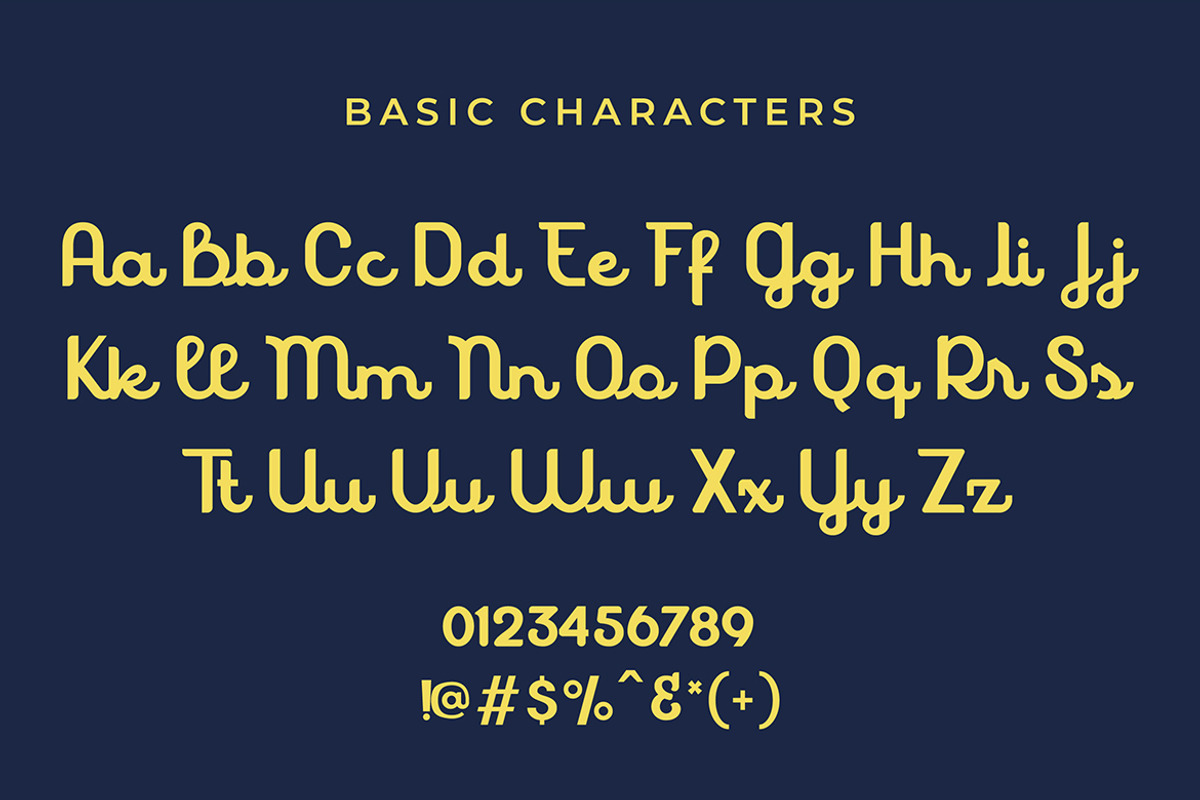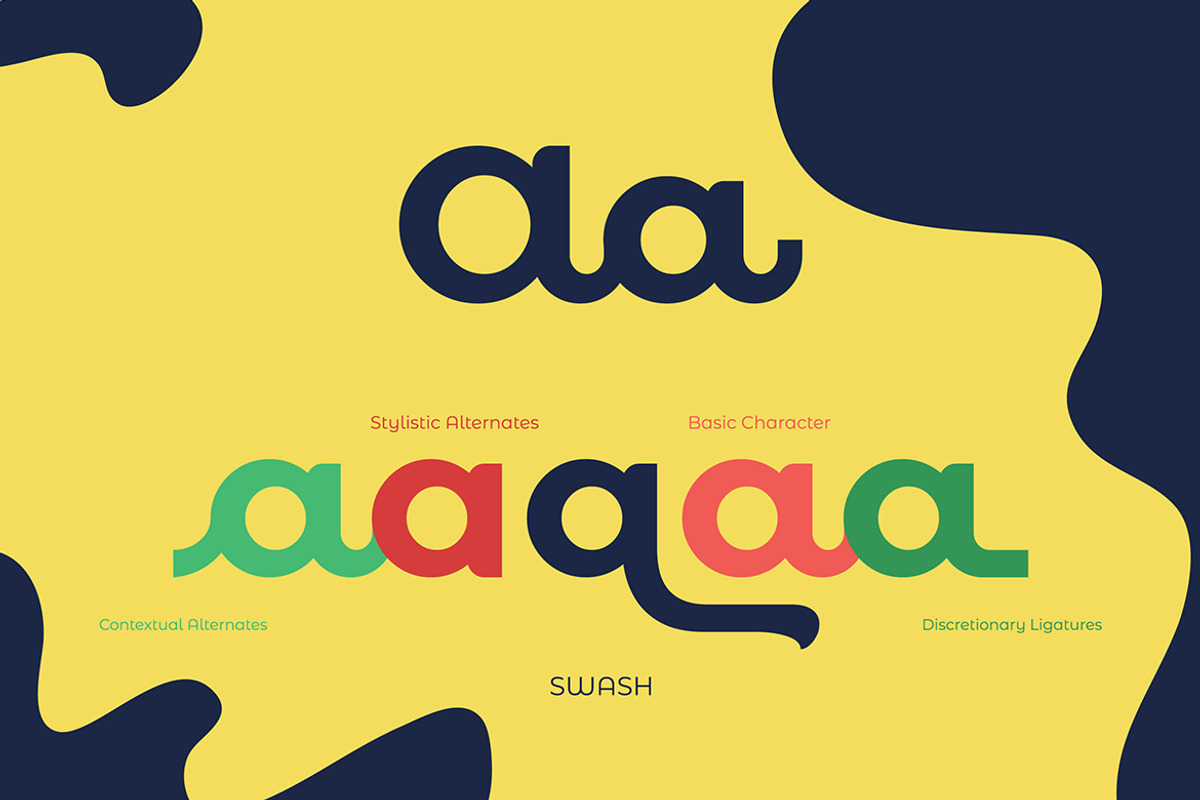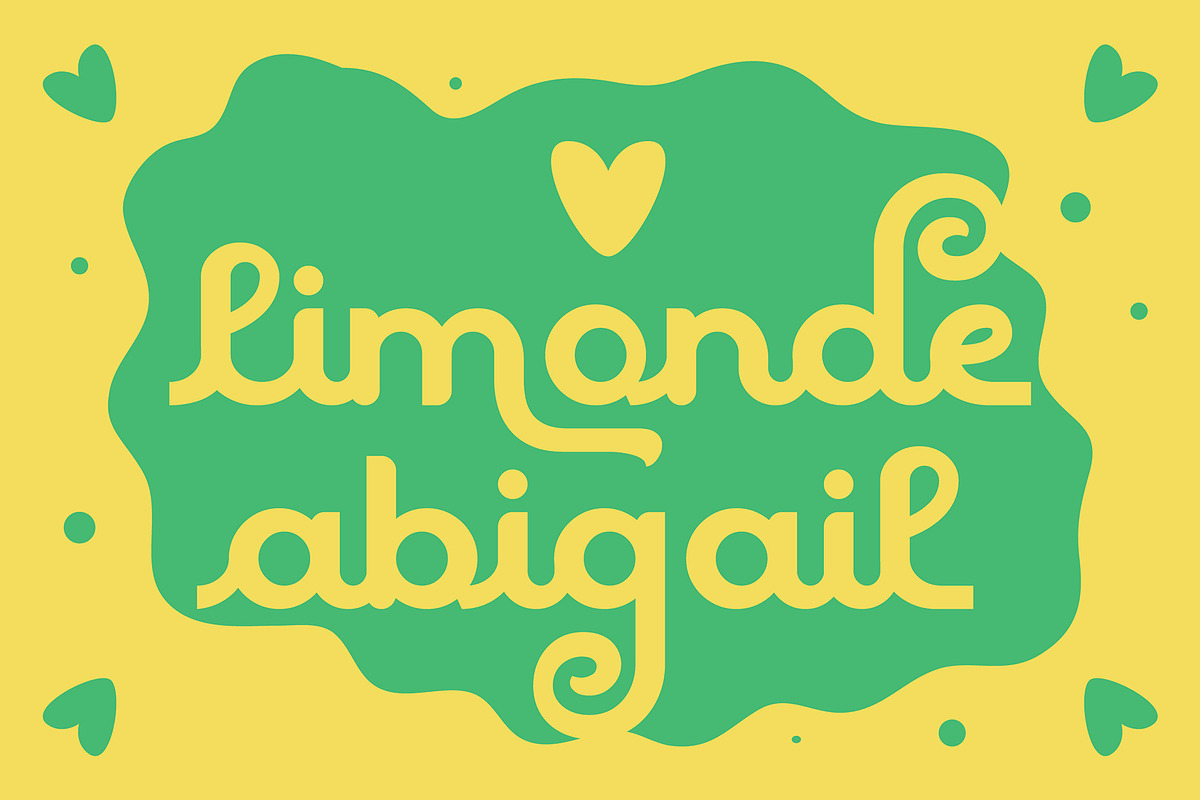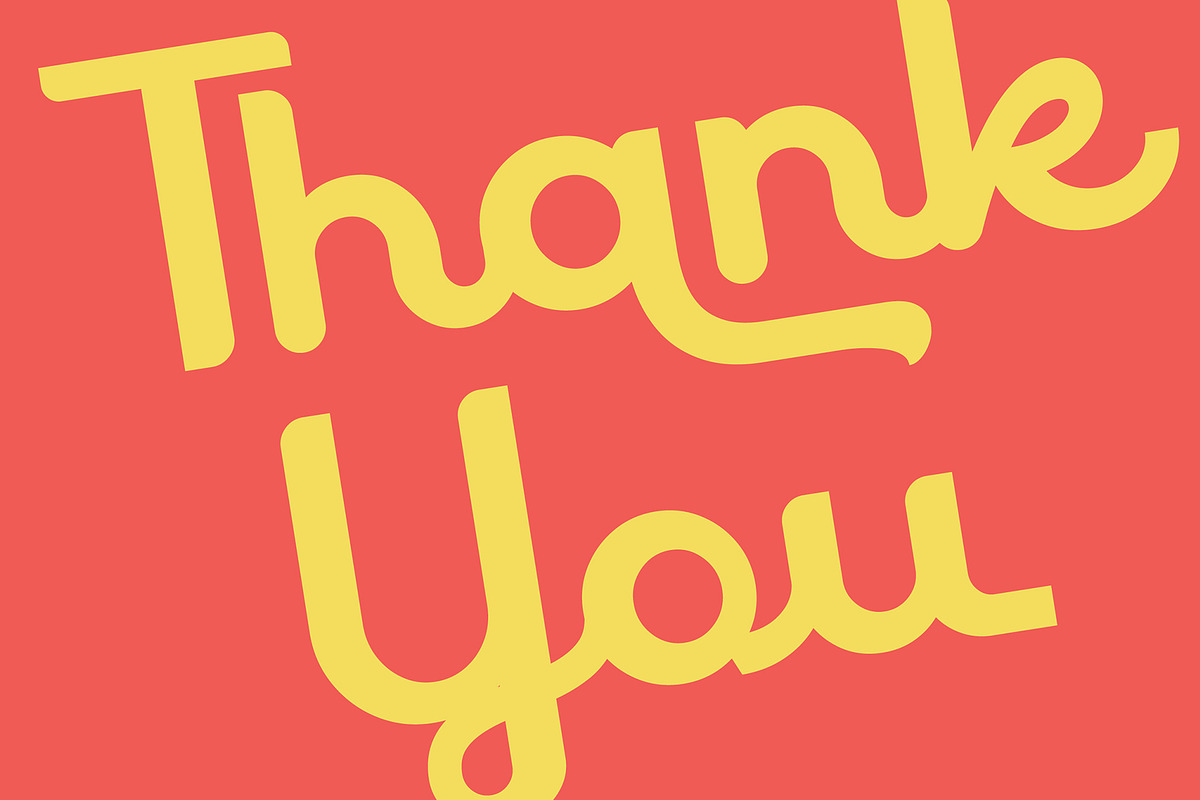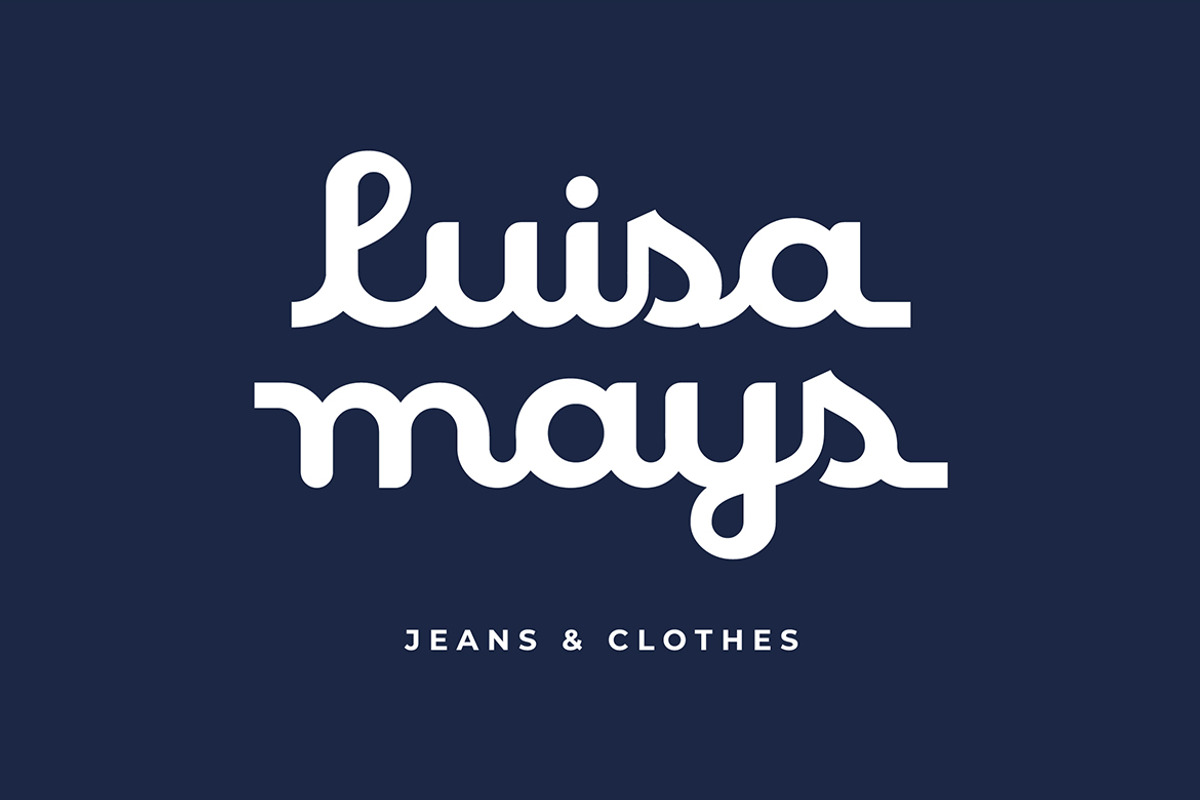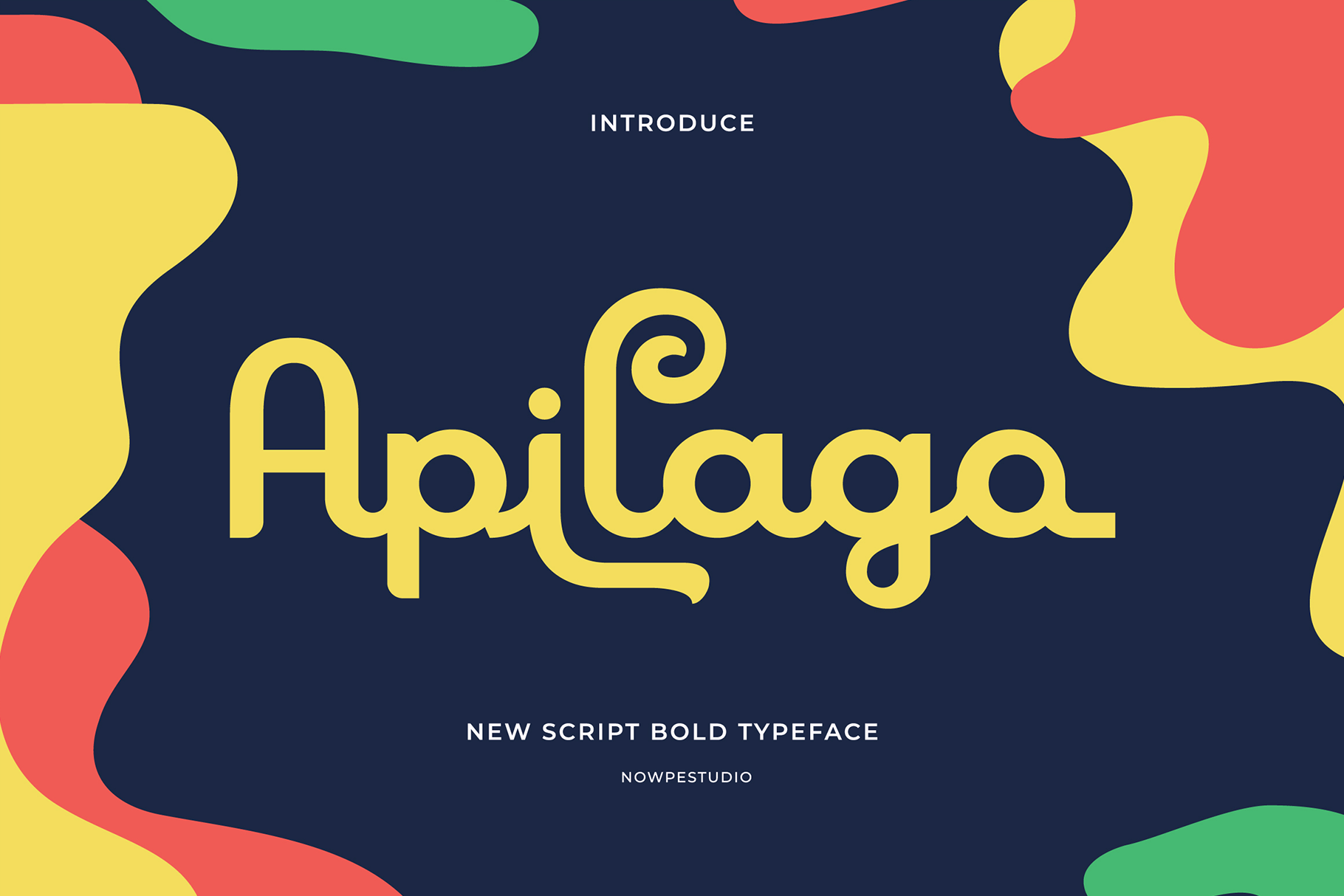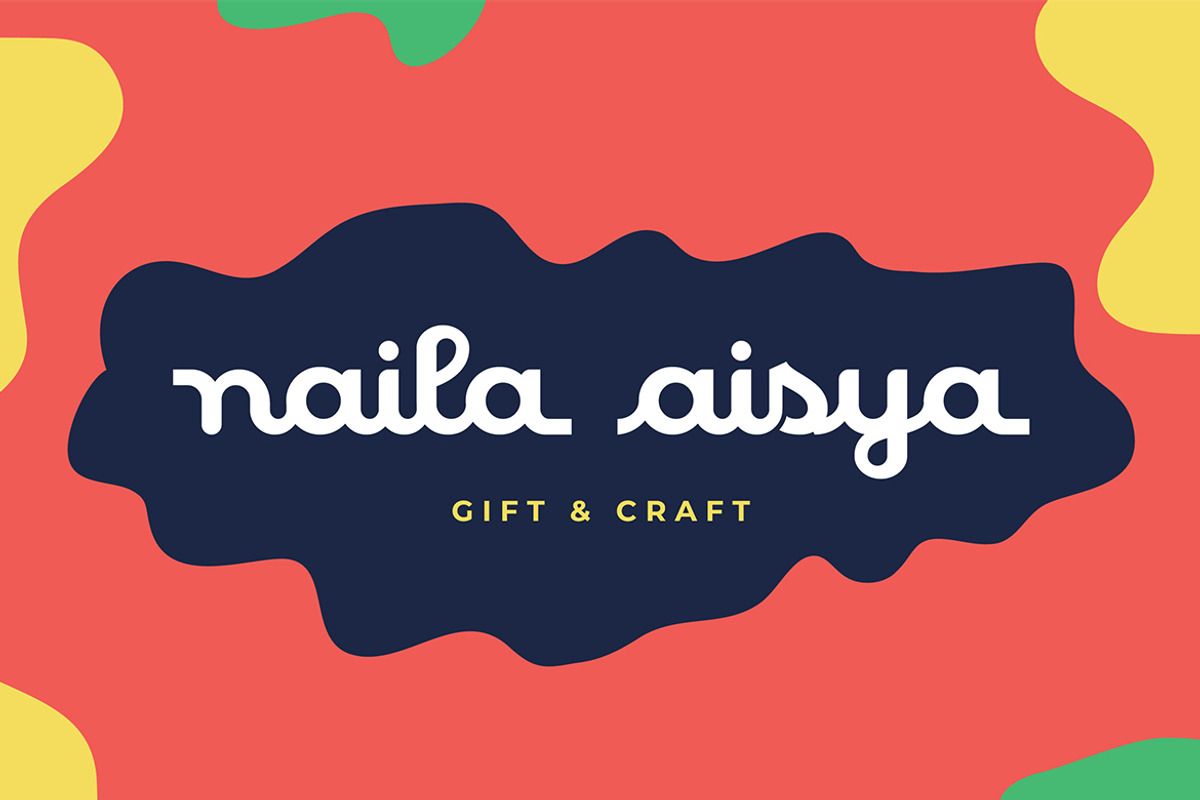
Apilago Typeface
Apilago Typeface | it's a playful script bold font made with carefully it's make perfect to create Elegant Design, Modern, Vintage, Retro and more. So Choice any Glyphs and create the awesome typography and design use this.